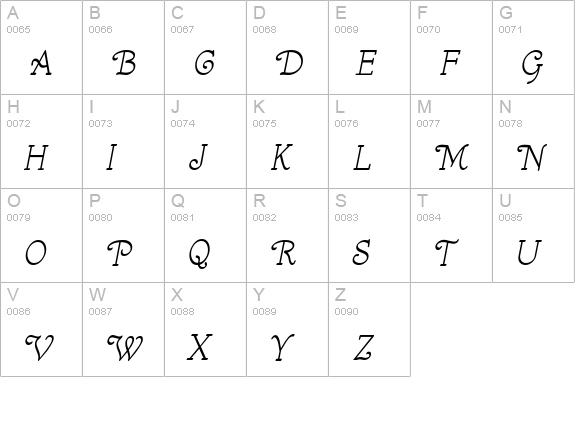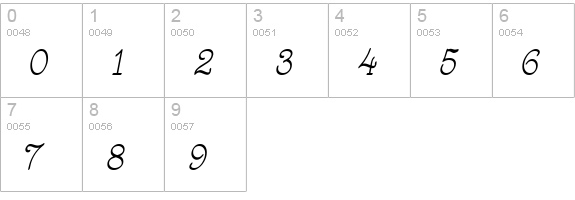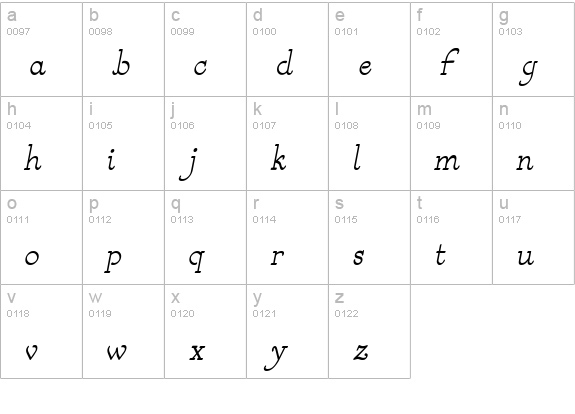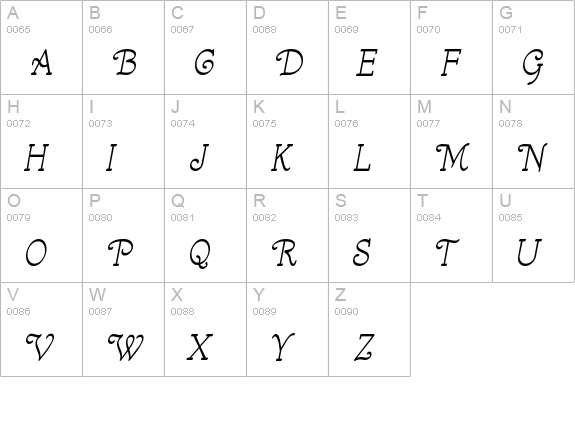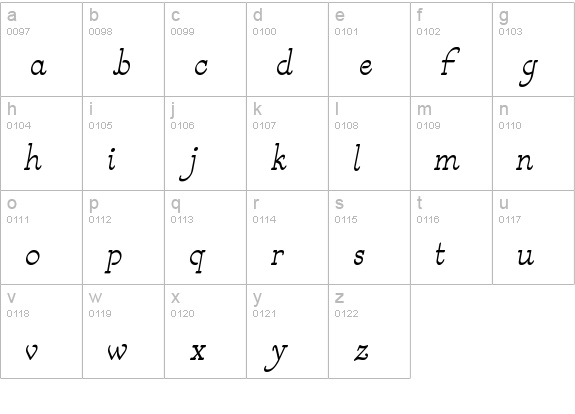
CK Dandy Font Details
CK Dandy is a whimsical and charming font that exudes a sense of playfulness and creativity. Its unique design features exaggerated curves and elegant flourishes, making it perfect for adding a touch of personality to any project. This versatile font is ideal for everything from greeting cards to branding materials, giving your designs a fun and quirky edge. What makes CK Dandy even more appealing is that it is available for free download at FontsMarket.com. This means you can easily access this delightful font and start incorporating it into your projects without any cost. So why wait? Download CK Dandy today and let your creativity shine with this free and captivating font.